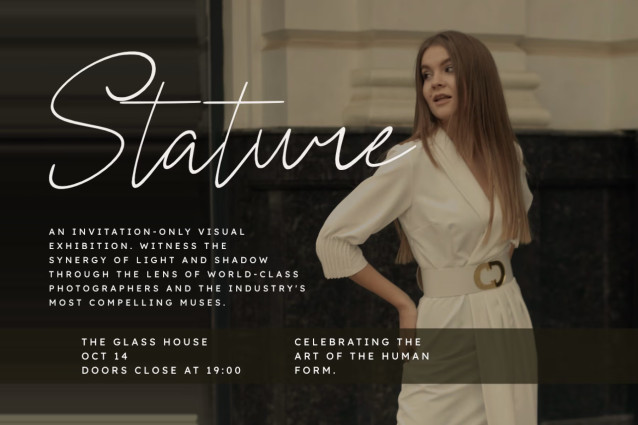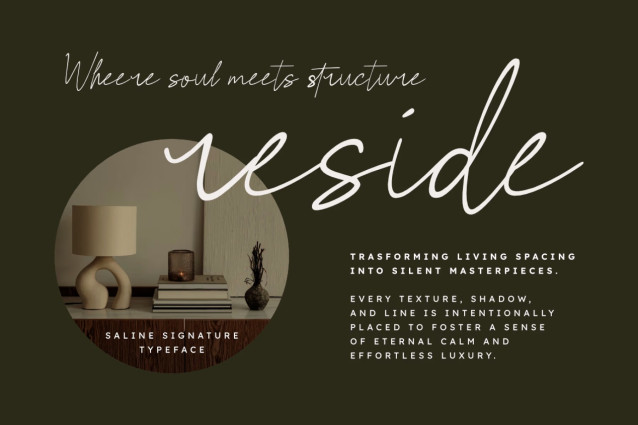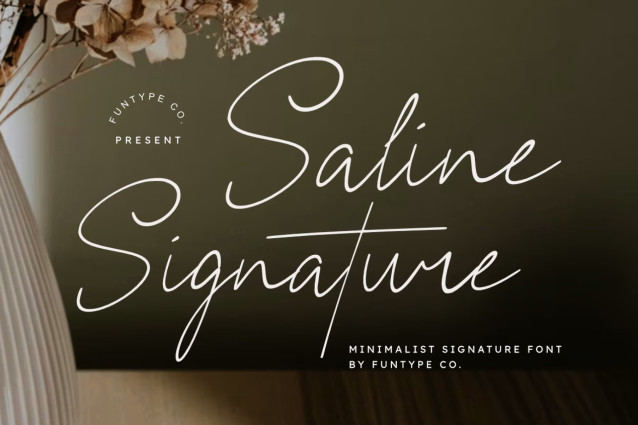
Saline Signature Font
Saline Signature Font is a beautiful and elegant minimalist signature font designed for impactful and intimate typography. With its refined structure and natural monoline flow, this font is perfect for chic branding, photography watermarks, luxury logos, and modern lifestyle designs. Its clean and sophisticated design gives your visuals a striking, professional, and heartfelt look.